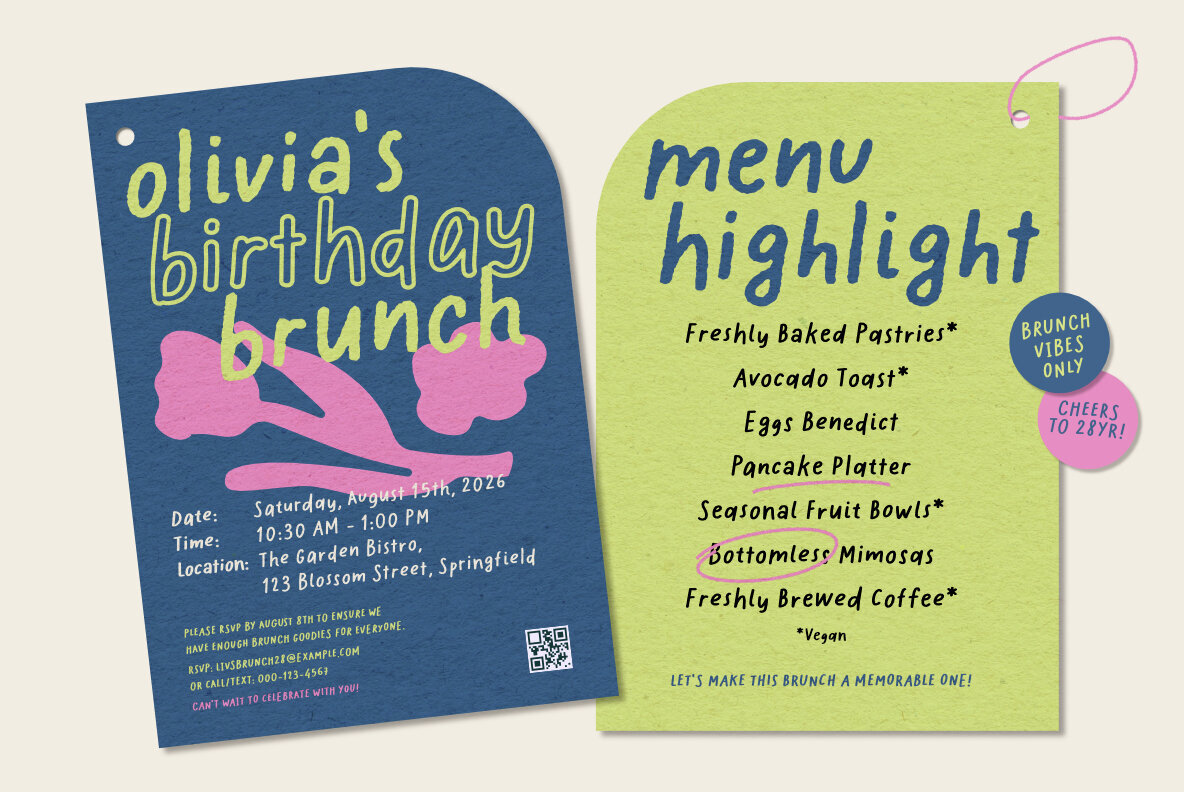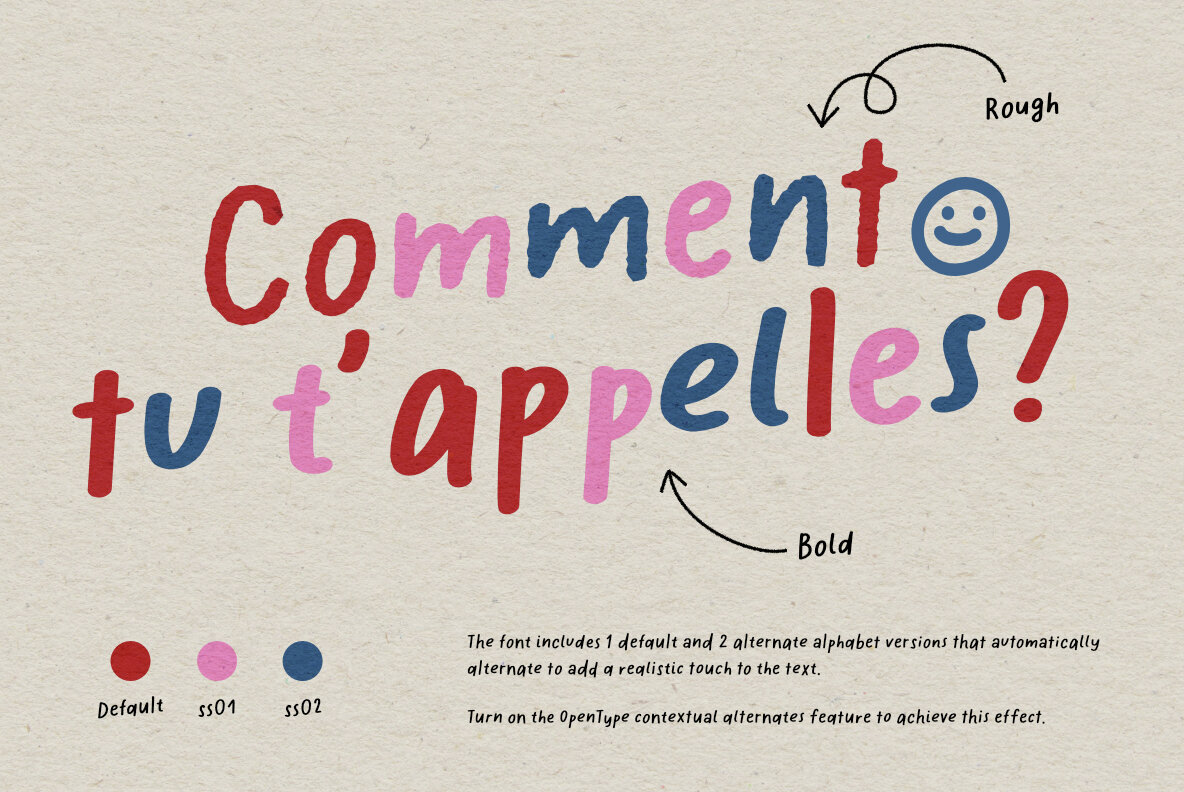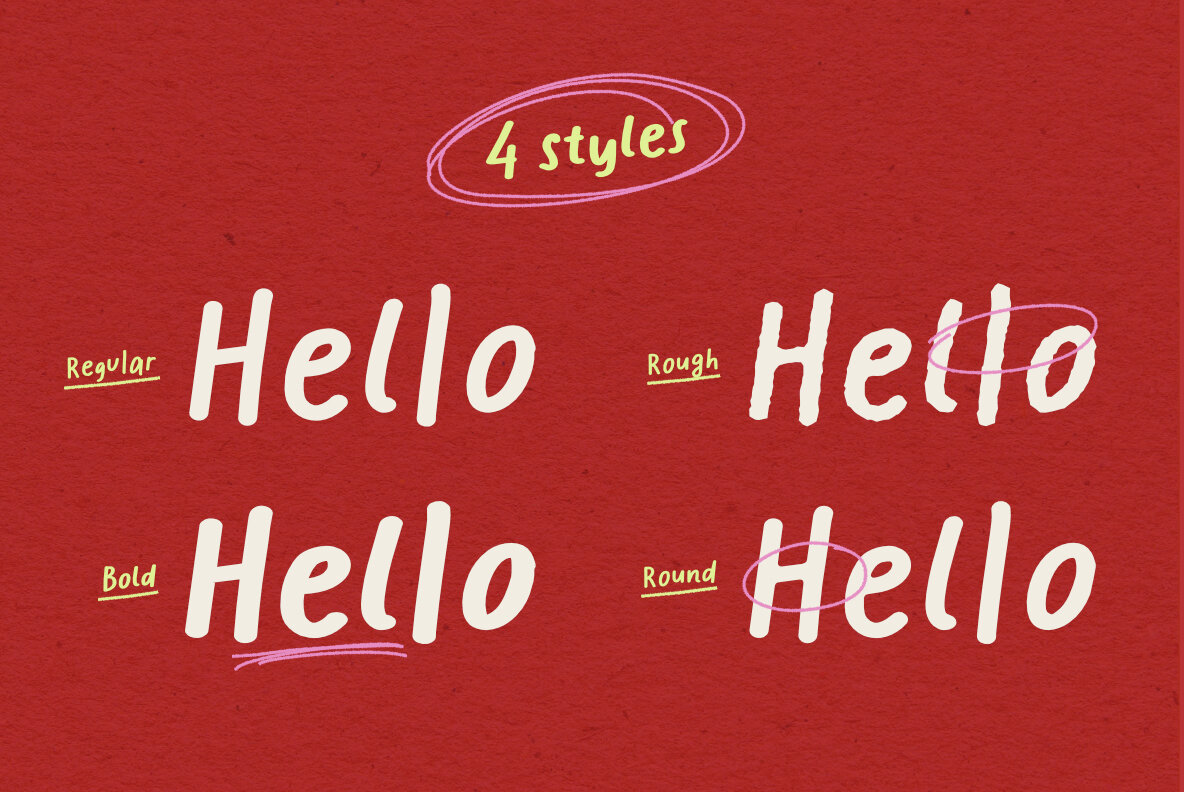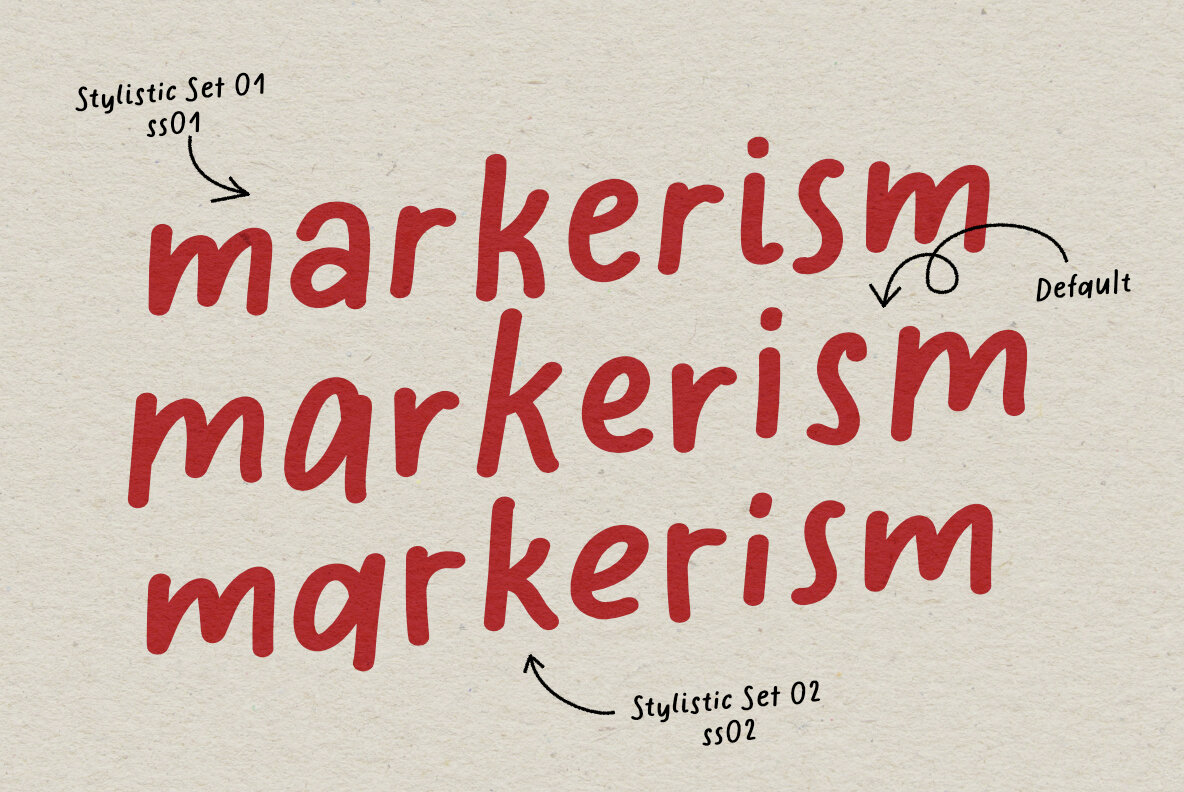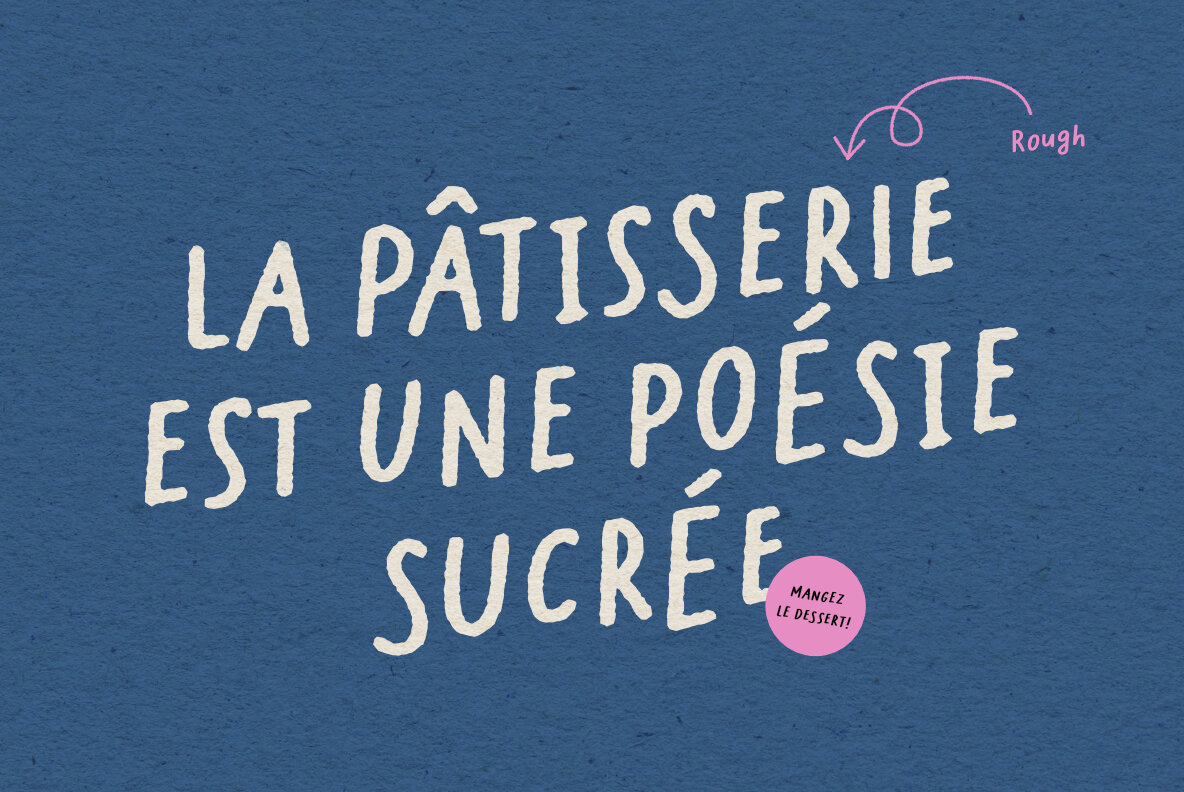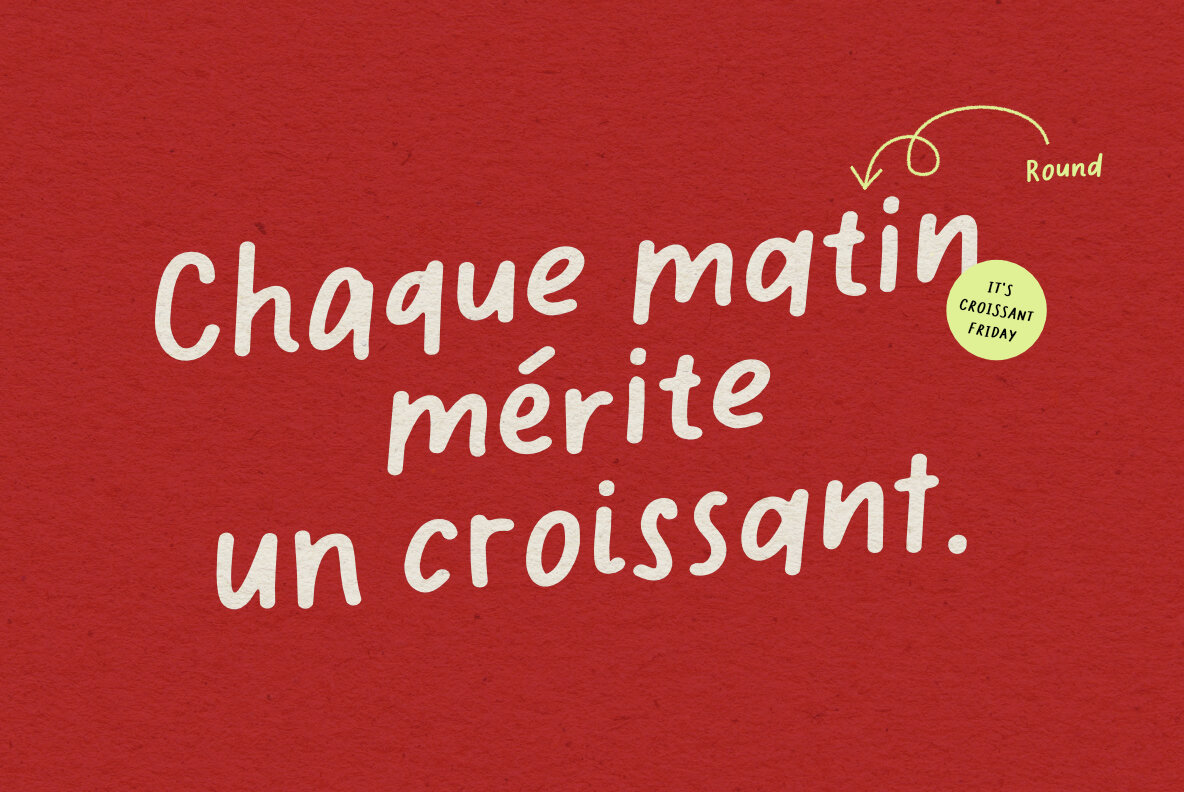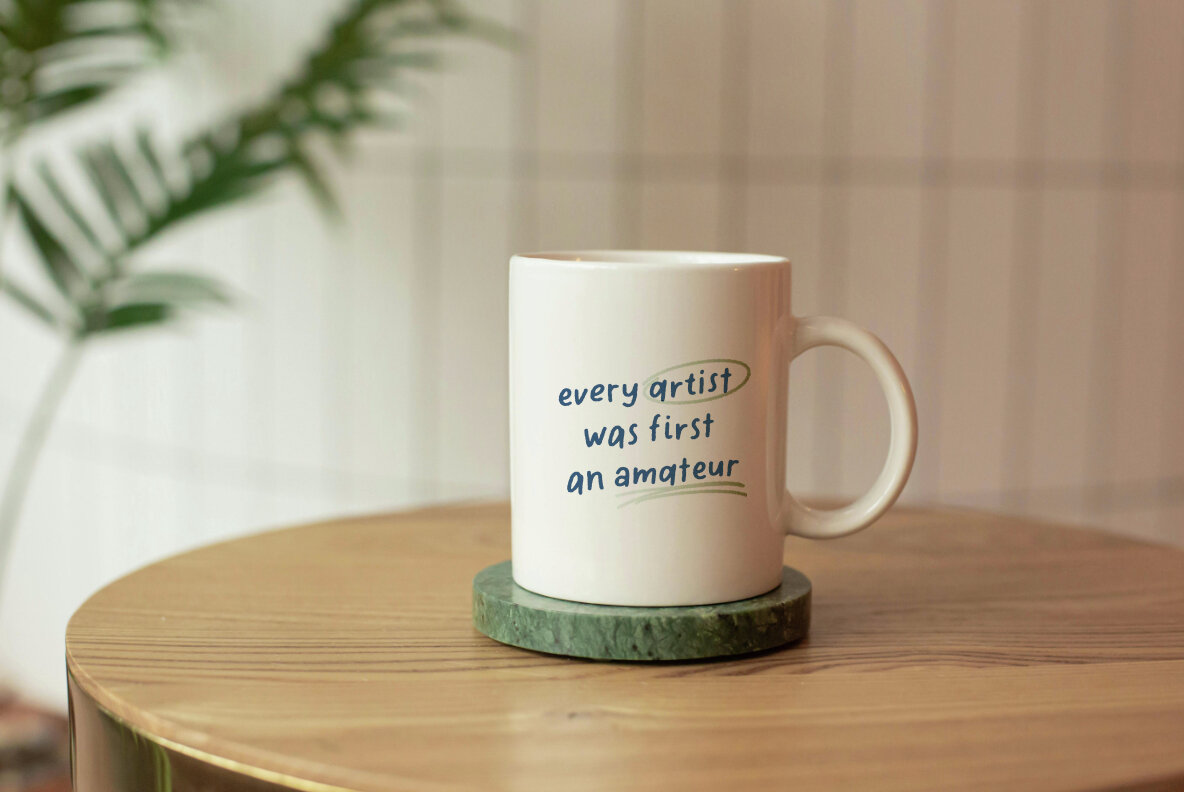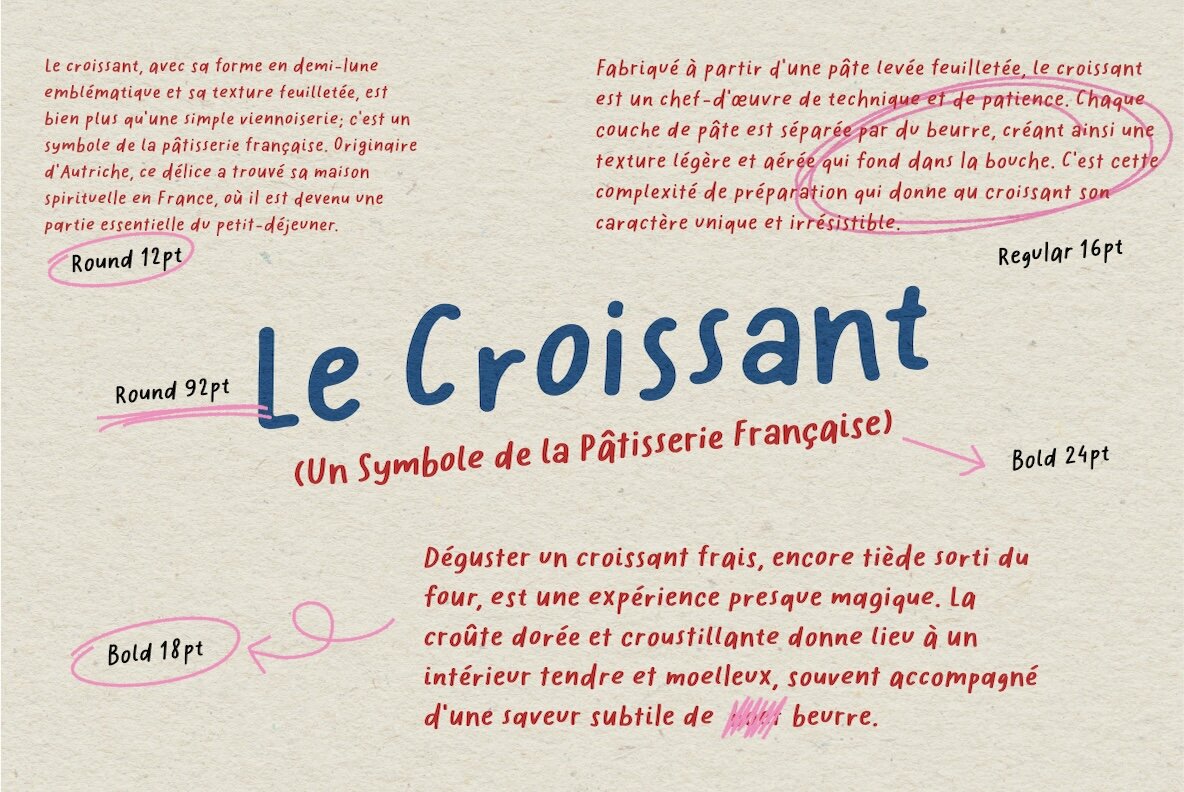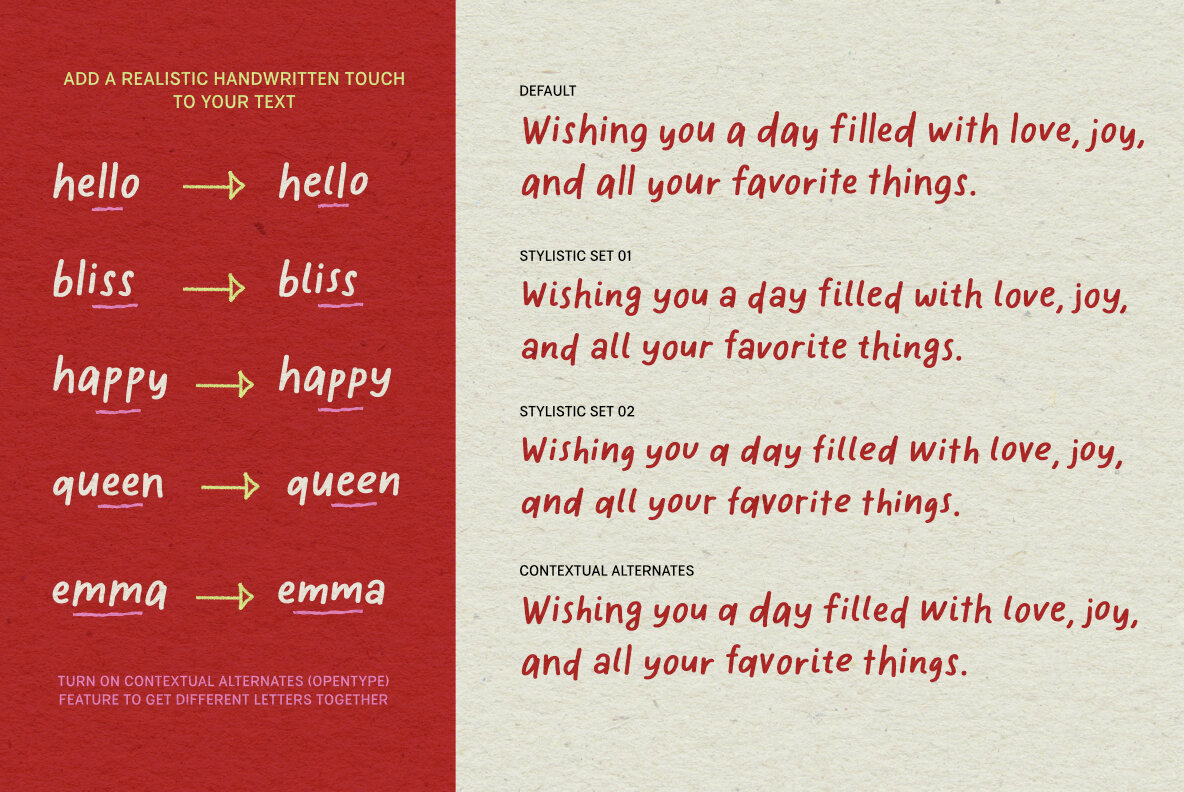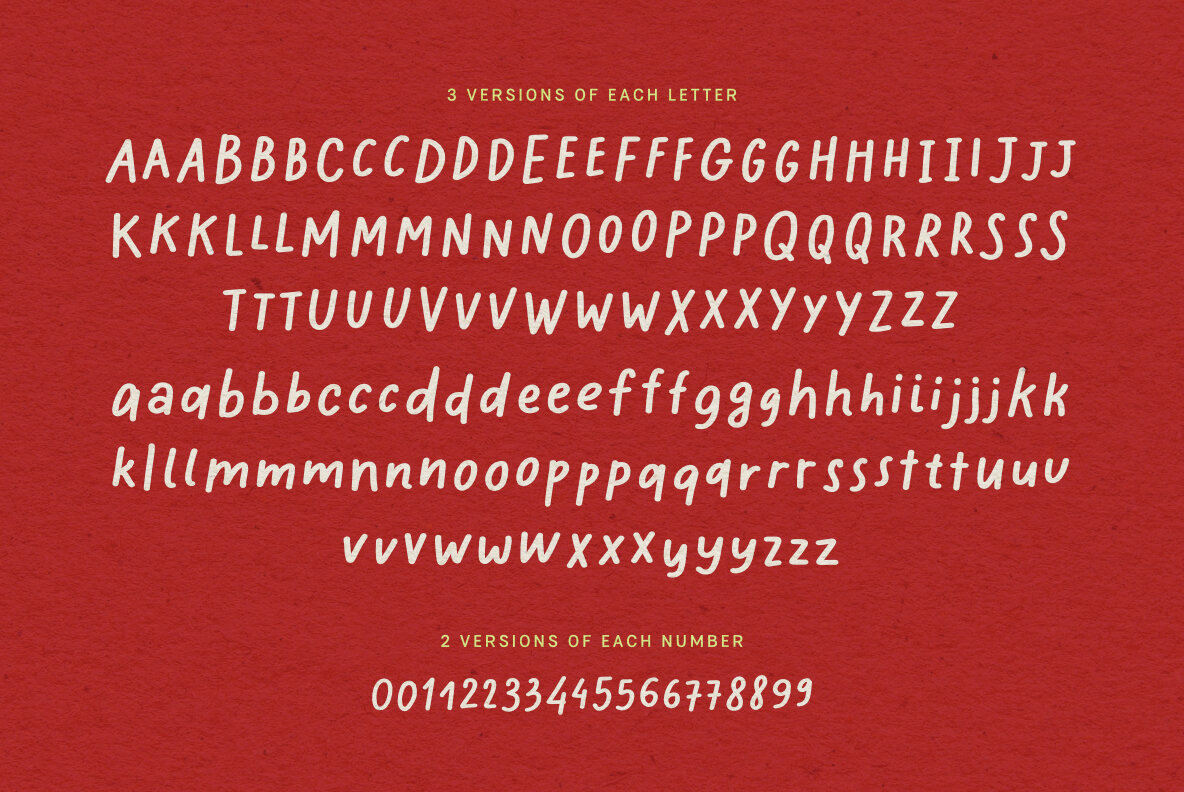
Markerist Font
Markerist Regular
Markerist Bold
Markerist Rough
Markerist Round
Markerist is a maker-style handwritten font family. This typeface comes with a full set of handmade alphabets, numbers, punctuation marks, and symbols, providing you with everything you need for comprehensive and cohesive design work. Perfect for adding a personal touch to your projects, from invitations and greeting cards to branding and social media graphics. Simply turn on OpenType Contextural Alternates feature to add a realistic handwritten touch to your text. 4 styles: Font features: